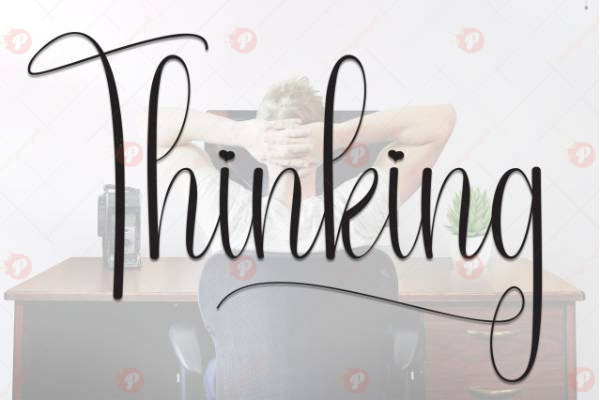
The Thinking Handwritten Font Free is a modern and casual handwritten script font that adds a personal and authentic touch to any project. With its smooth strokes, natural handwriting flow, and stylish curves, this font is perfect for quotes, journals, social media posts, invitations, logos, posters, packaging, and lifestyle branding.
Whether you’re designing for creative blogs, inspirational quotes, or branding projects, the Thinking Handwritten Font Free brings a friendly, thoughtful, and modern handwritten vibe to your work.
Typeface: Handwritten / Script
Style: Casual / Modern / Stylish / Authentic